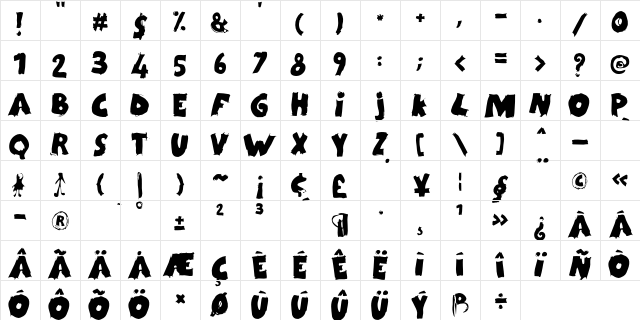
Kidy CapsBlack Free Font
Kidy CapsBlack
Style: CapsBlack
Design Context for Kidy
Kidy is a composed and adaptable typeface that performs quietly and consistently across a wide range of design contexts.